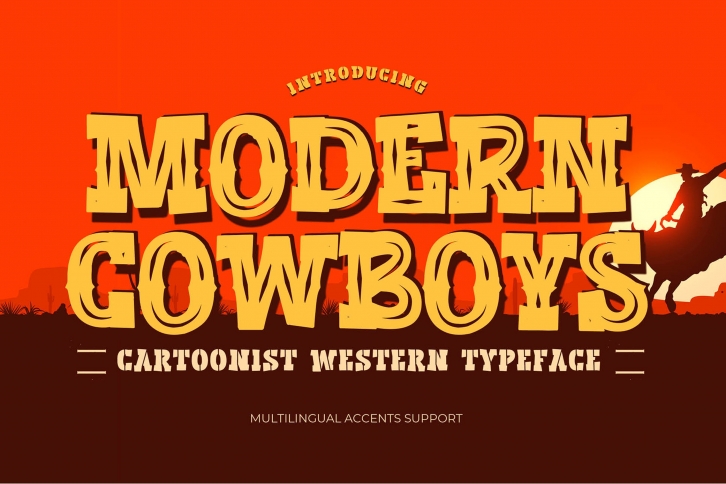
Modern Cowboys is a trendy and unique font with an authentic style. It was designed by Gassstype Studio and it's a great choice for creative people who need such a font. It was released on November 30, 2021 and the file size is 9.53 MB. Modern Cowboys will add an organic vibe to any design idea!